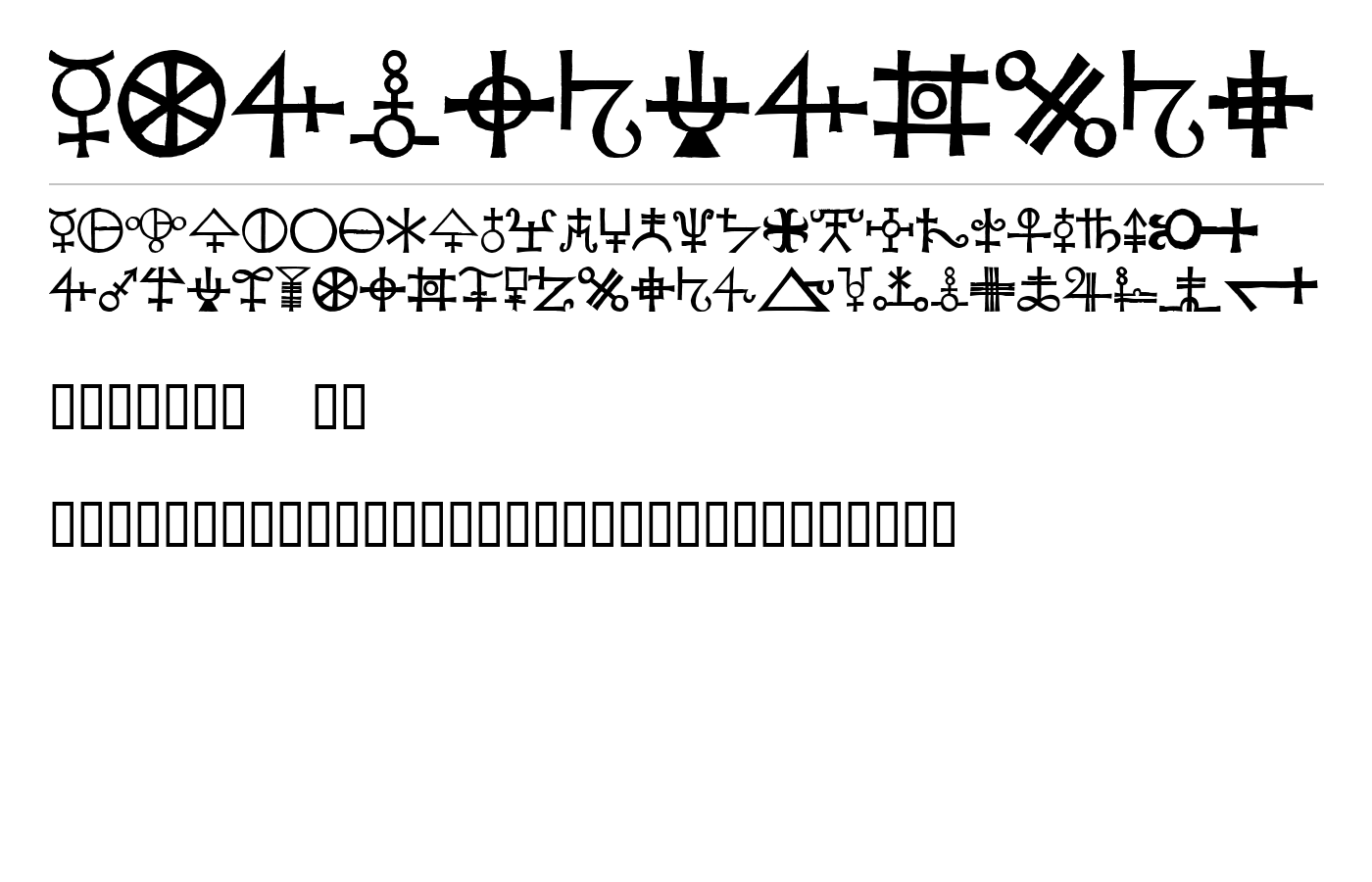
Agathodaimon is a highly stylized, symbolic font that resembles esoteric or alchemical glyphs, designed with bold, uneven strokes that give it a mysterious and ancient feel. Its unique, intricate shapes and lack of conventional letterforms make it ideal for projects needing a mystical or occult aesthetic, such as fantasy games, themed posters, or branding that seeks to evoke curiosity and the arcane. This font is best used for decorative or headline purposes where its striking character can make a strong visual impact.
Agathodaimon Font
About Agathodaimon Font